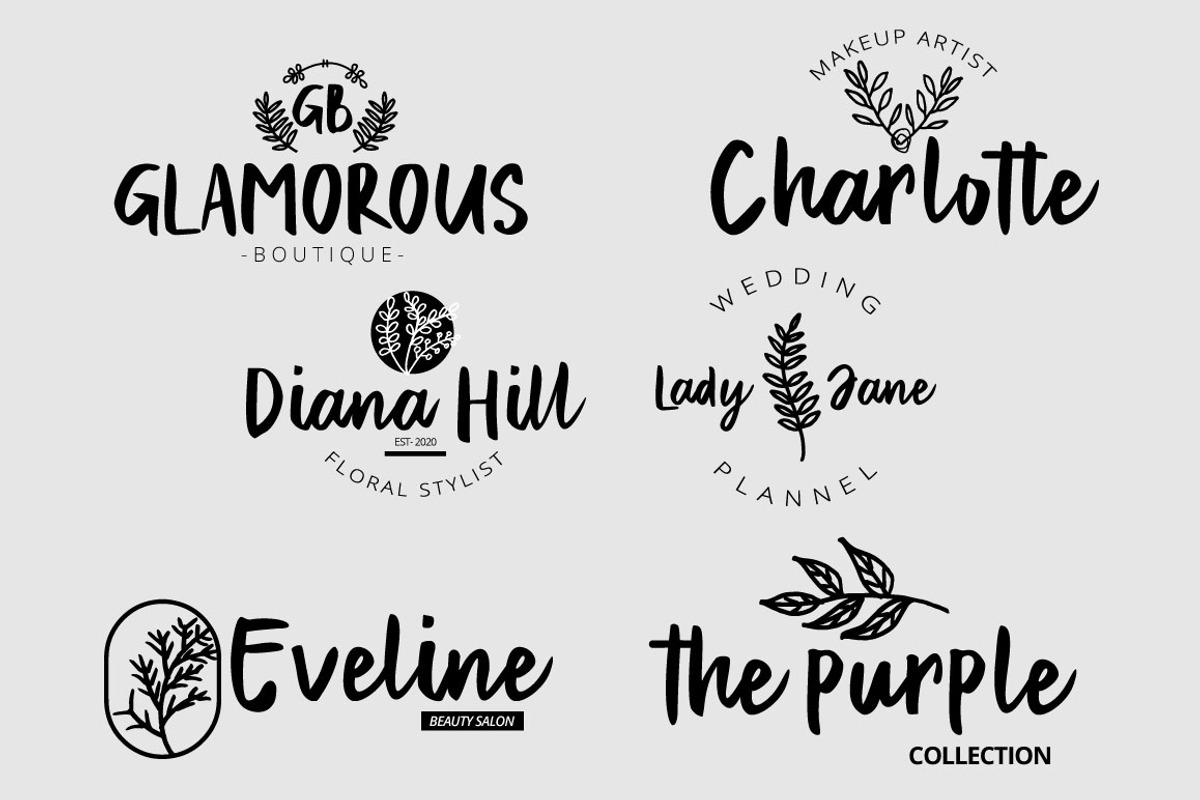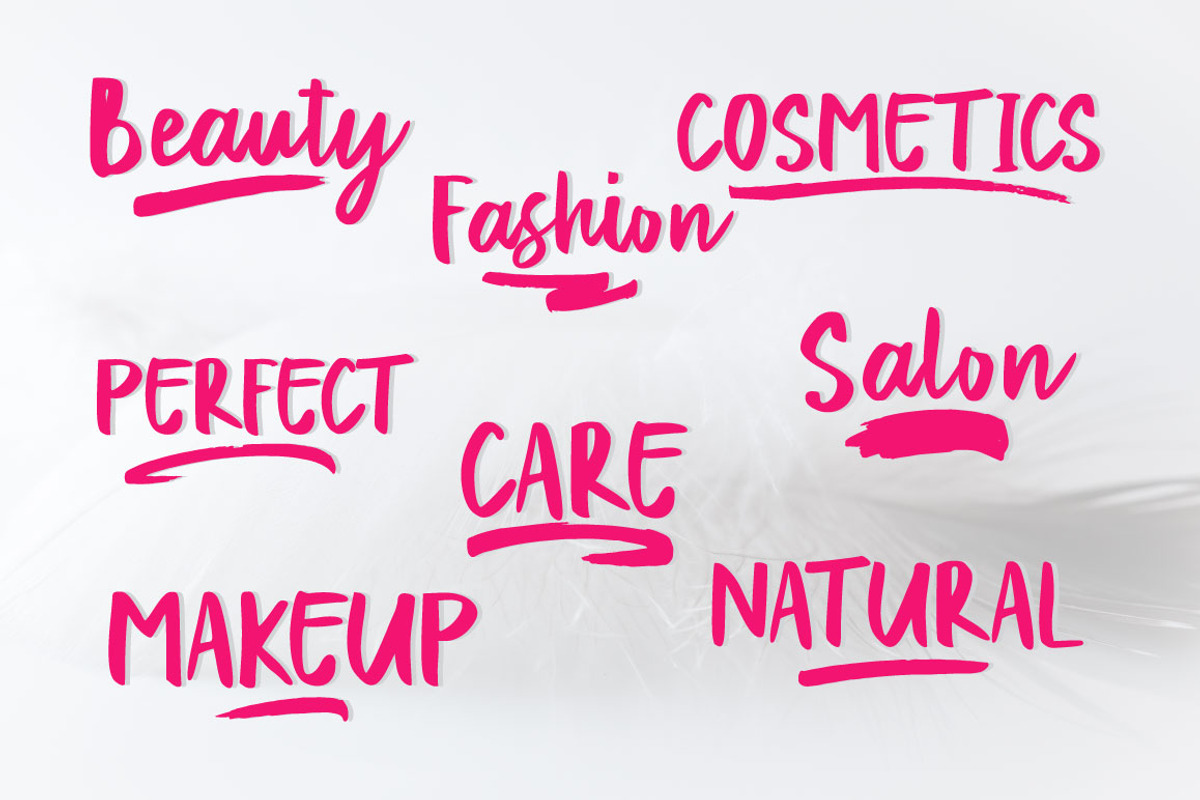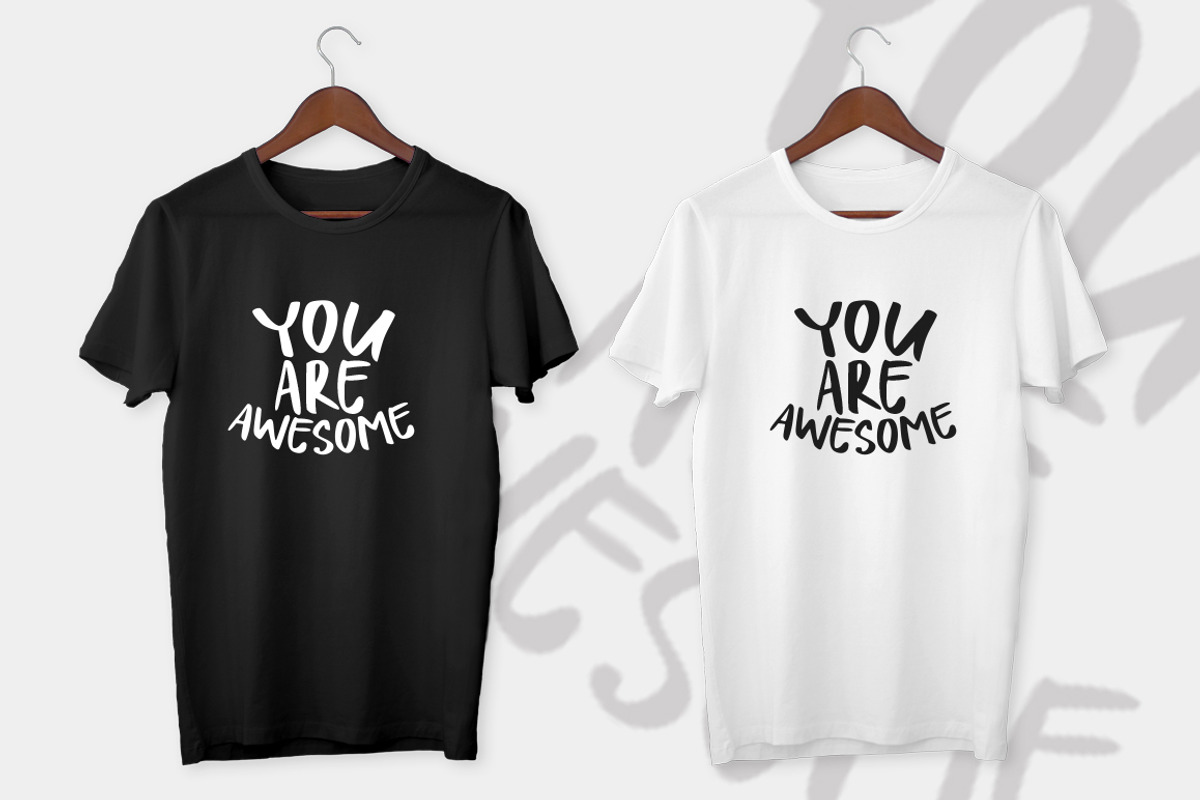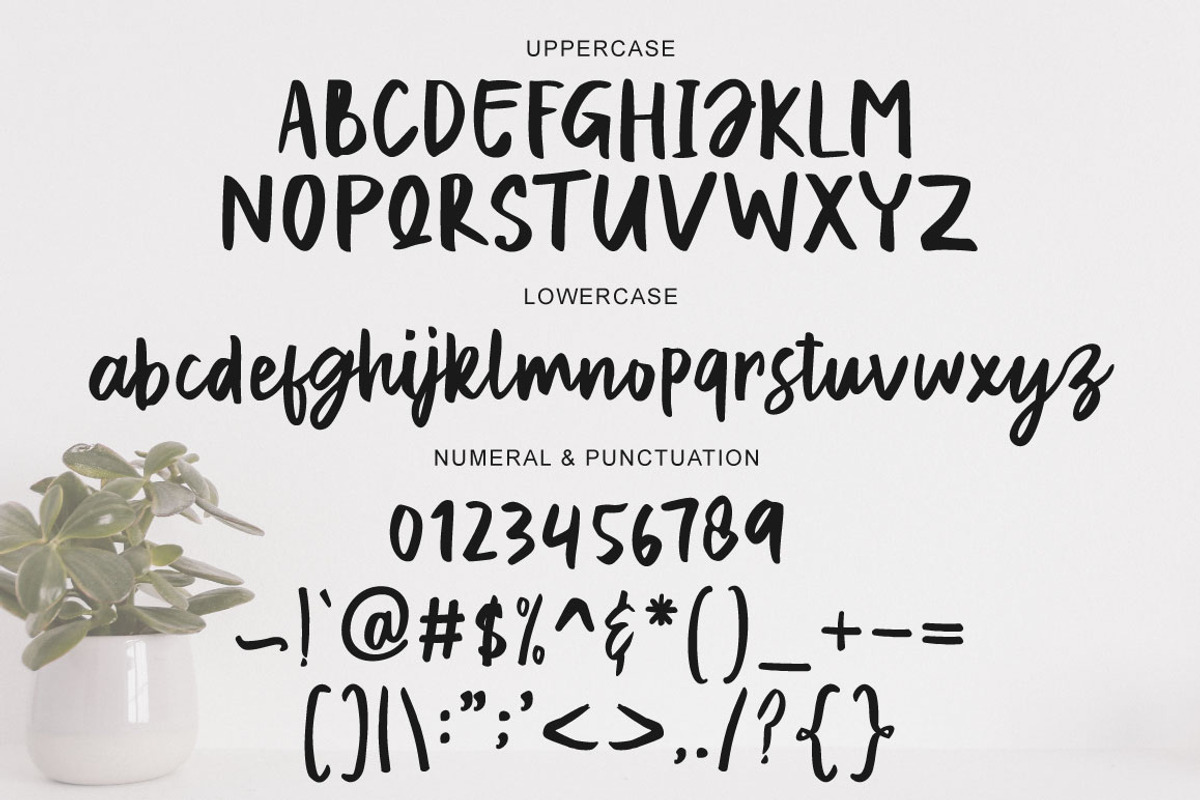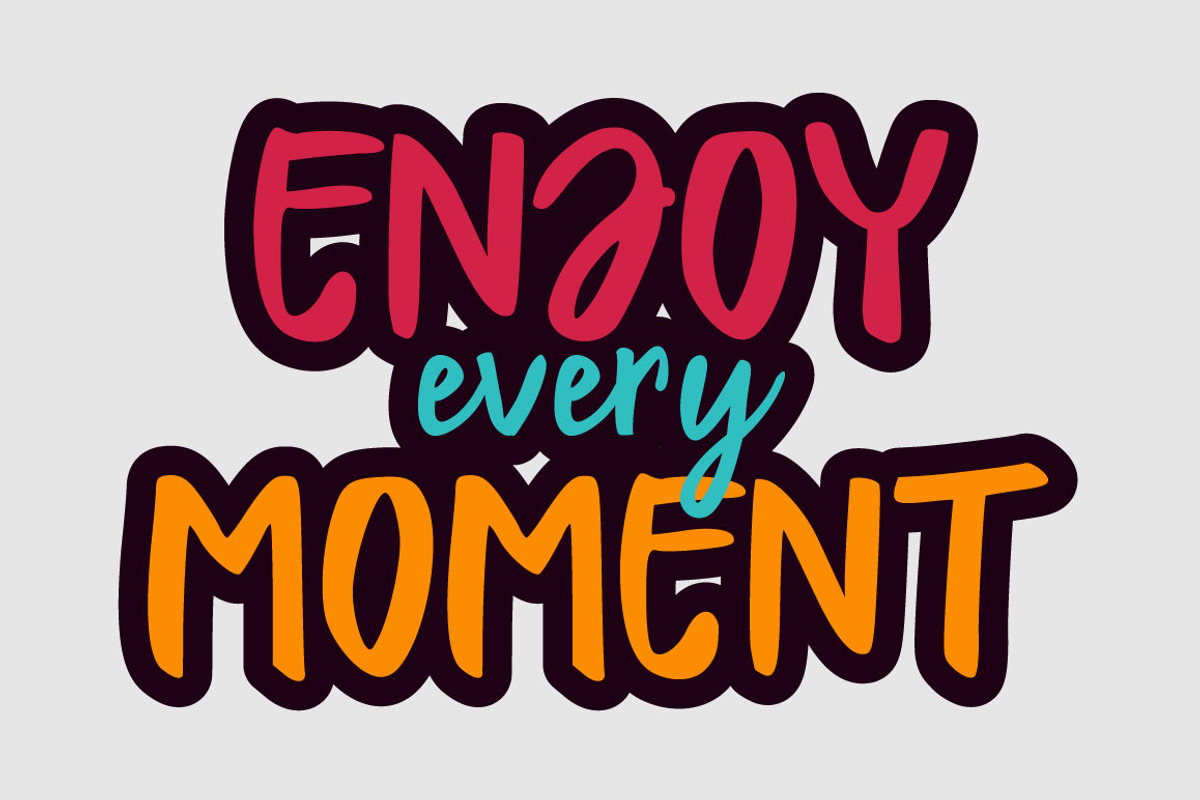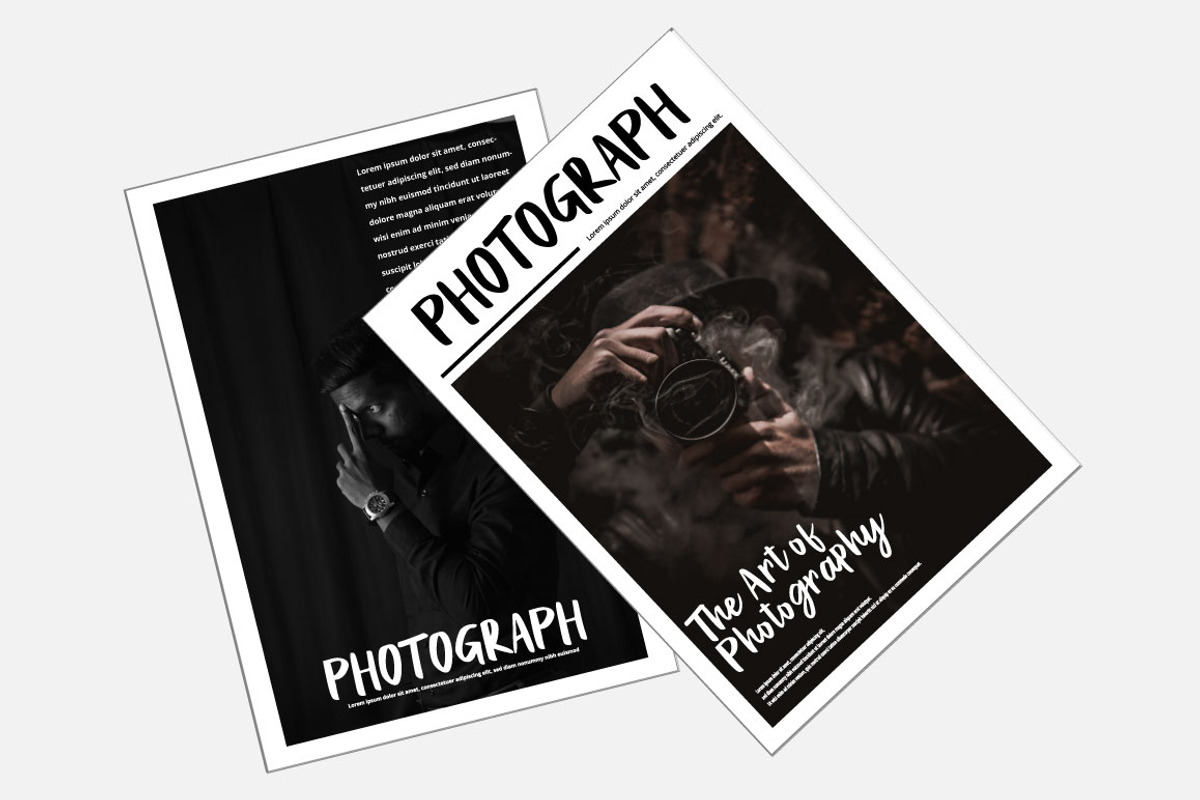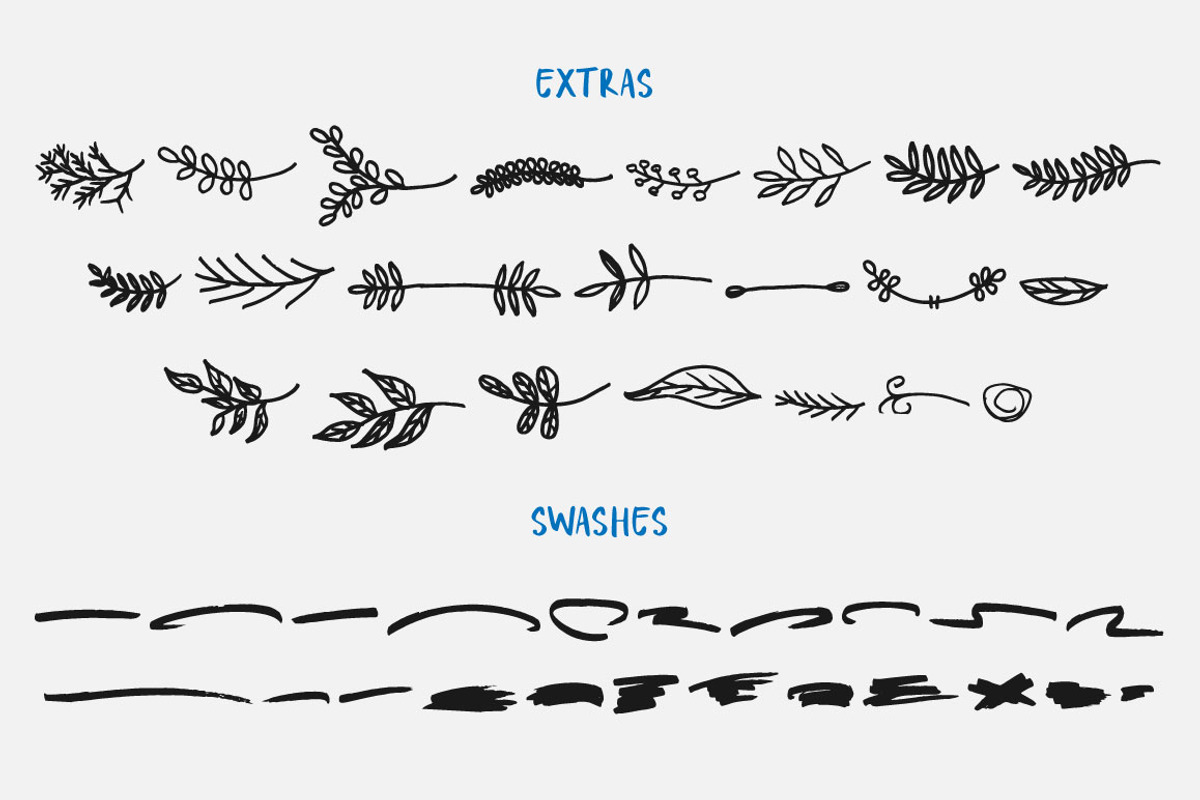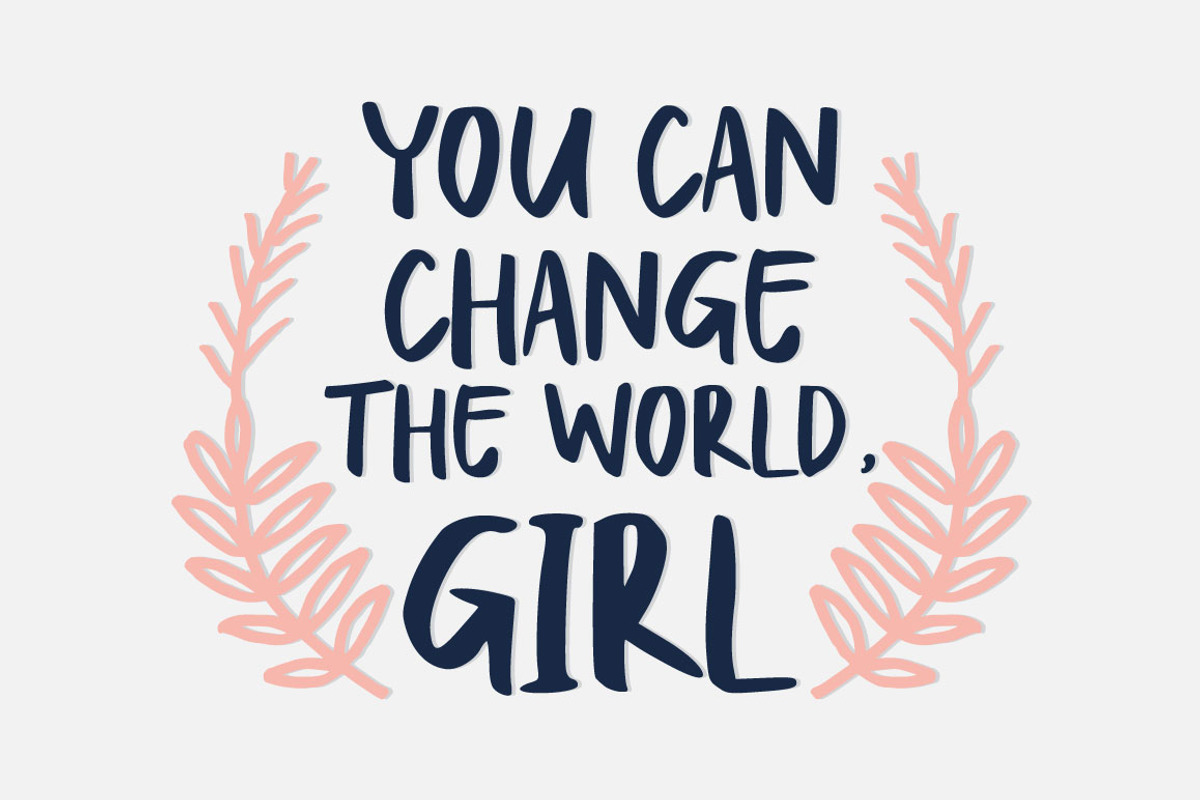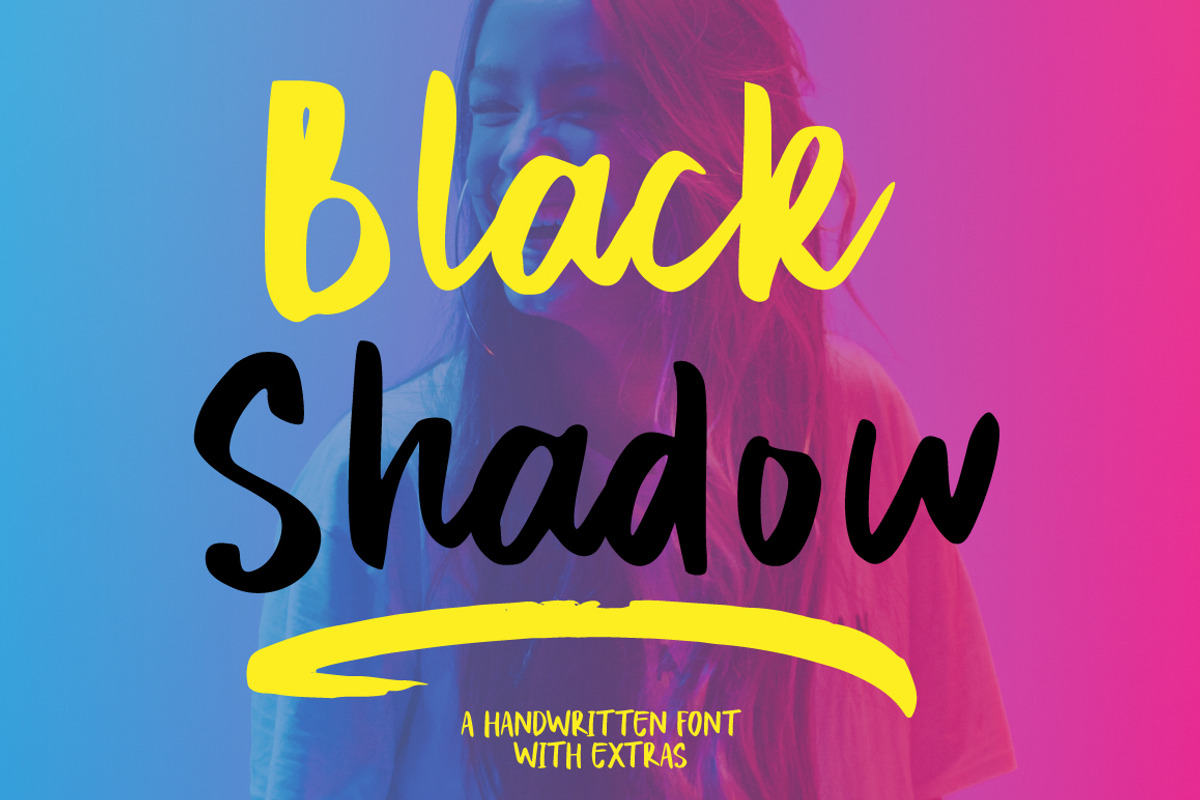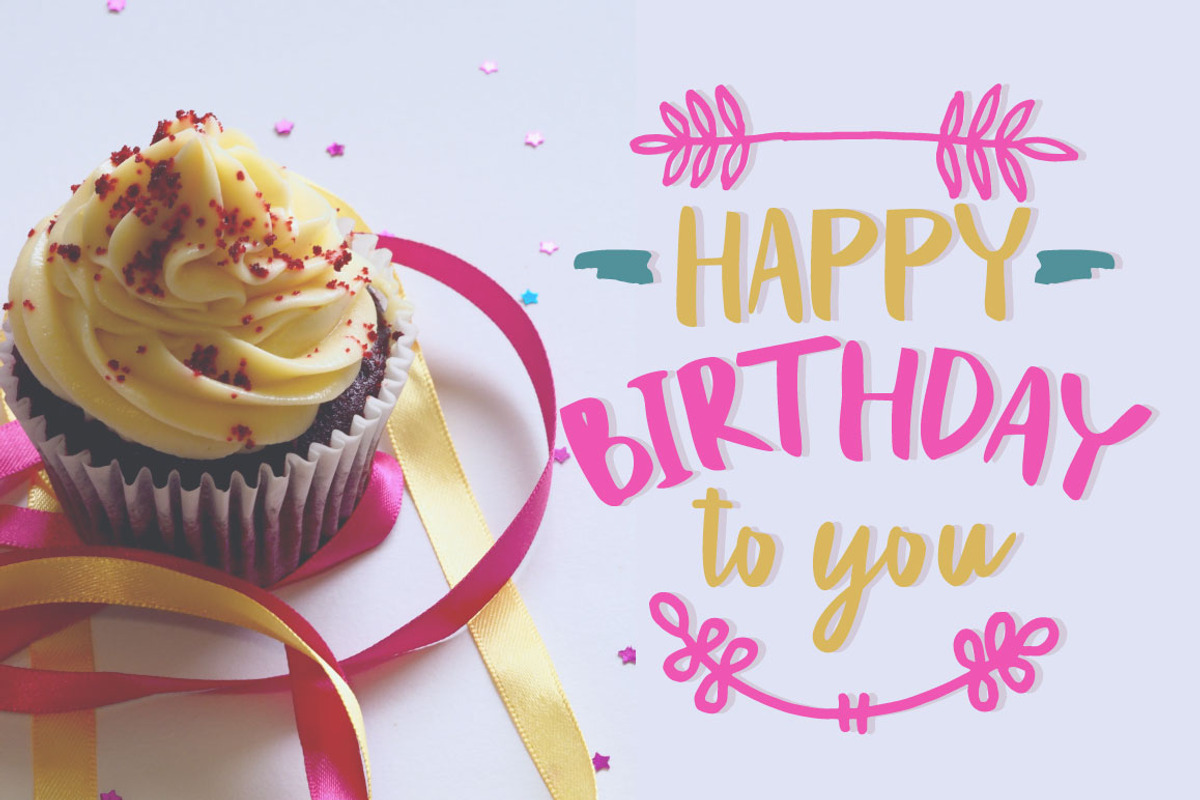
Black Shadow
Black Shadow is handmade font with stunning characters. Ideal for logos, name tag, handwritten quotes, product packaging, merchandise, social media & greeting cards. It contains a full set of lower & uppercase letters, a large range of punctuation, numerals, and multilingual support.